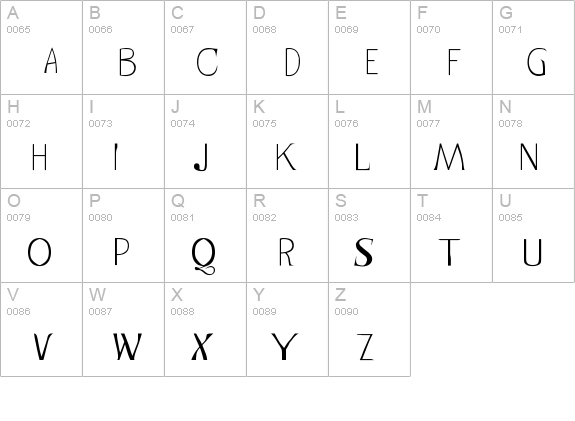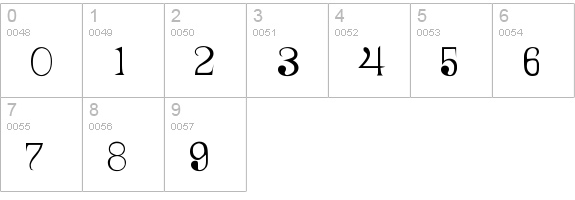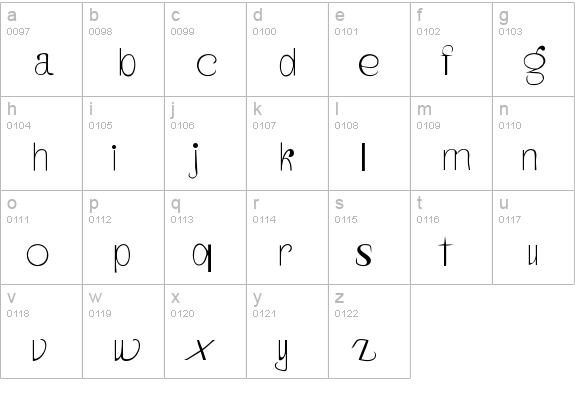
Traino Font Font Details
Traino Font is a free for personal use font in the Script > Handwritten category, designed by CoFonts. It has been downloaded 5 times and is available for Windows, Mac and Linux.
Traino Font is a modern and stylish typeface that exudes elegance and sophistication. Its clean lines and sleek design make it perfect for a variety of projects, from branding to editorial design. With a wide range of weights and styles, Traino Font offers versatility and flexibility for any creative endeavor.